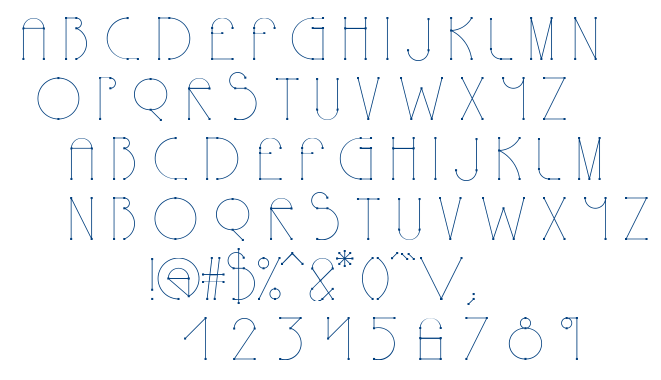
Tiny Small Medium Large Polyline font Alejandro Londono Website Polyline.ttf Download 1643 downloads Free for personal use Category: Fancy » Various Una tipo basada en el icono de polilínea de AutoCad.Just a typography based on AutoCADs polyline icon.Enjoy! Character Map specimen sheet